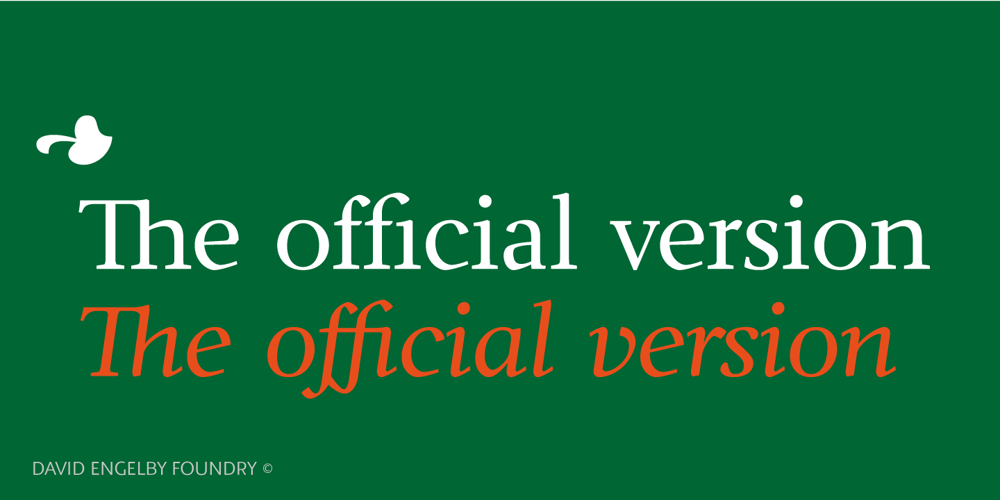
Ingleby II Font Family was designed by David Engelby and published by David Engelby Foundry. Ingleby II contains 4 styles and family package options. Ingleby II is a typeface with firm roots in the classic stroke of the pen. The digital design of Ingleby II is legible and distinct in small sizes as well as expressive when used for larger display design. It contains small caps, an innovative range of subtle ligatures, dingbats and adjusted variations of numerals. The glyphs have many detailed designs for better legibility and precise kerning. Also, the italic glyphs are designed with optical accuracy in relation to the skewing of stem width and height. I hope you will welcome the Ingleby II family as a part of your personal font toolbox.